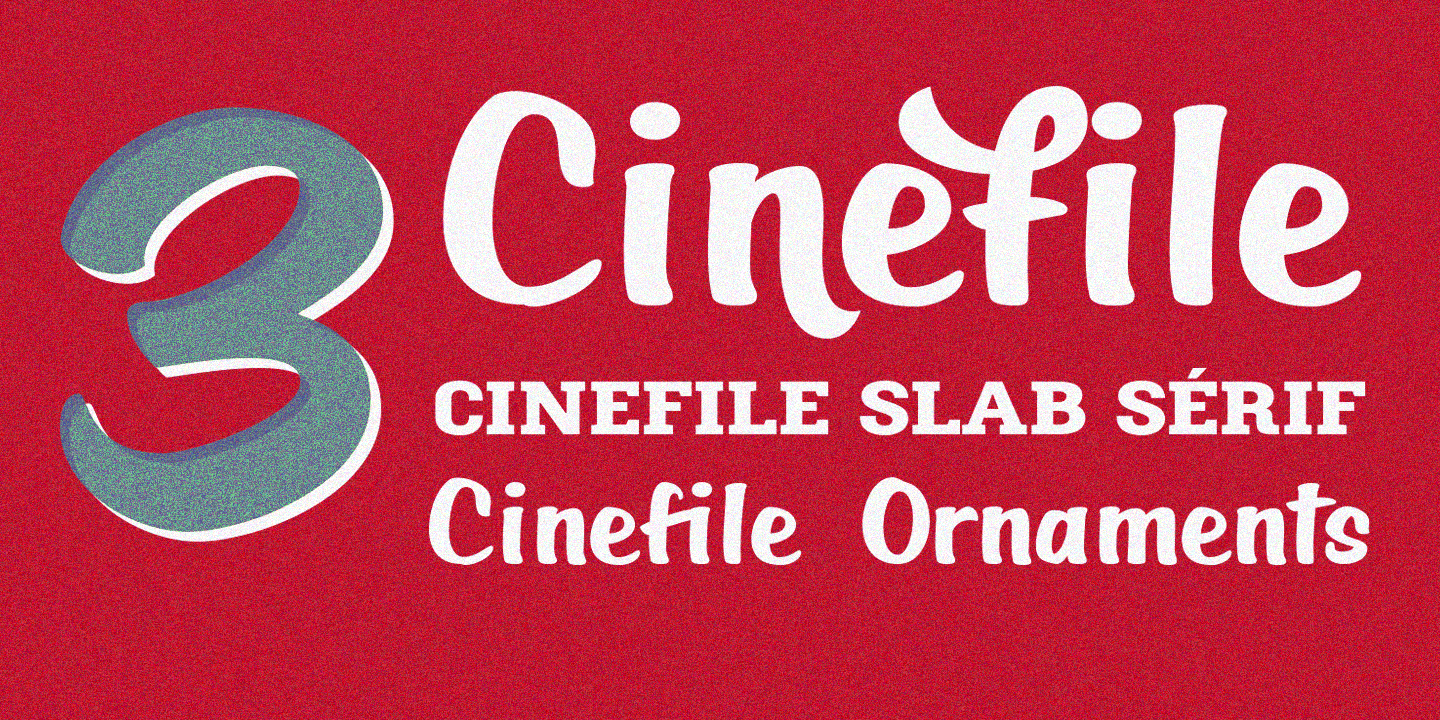
The Cinefile Font is perfect for various design applications including movie posters, film titles, entertainment branding, streaming platform graphics, theater signage, documentary credits, video game interfaces, and multimedia presentations. This cinematic typeface excels in both digital media production and print advertising for the entertainment industry.
What makes Cinefile Font exciting is its distinctive cinematic character that instantly evokes the glamour and drama of Hollywood. The font features sophisticated letterforms with theatrical flair, designed to capture attention and create emotional impact. Its dramatic styling and professional appearance make it perfect for projects that need to convey entertainment value and visual storytelling.
The Cinefile Font family includes multiple weights and styles, offering designers comprehensive options for their creative projects. The family typically consists of regular, bold, condensed, and extended variations, along with italic styles, providing versatility for different design contexts and ensuring perfect harmony across various entertainment media applications.
Whether you're designing for film productions, streaming services, or entertainment marketing campaigns, Cinefile Font Free Download delivers the cinematic quality and visual drama that modern media designers require. The font's entertainment-focused design combined with its professional legibility makes it an indispensable tool for creating compelling visual narratives that capture audience attention and enhance storytelling experiences.